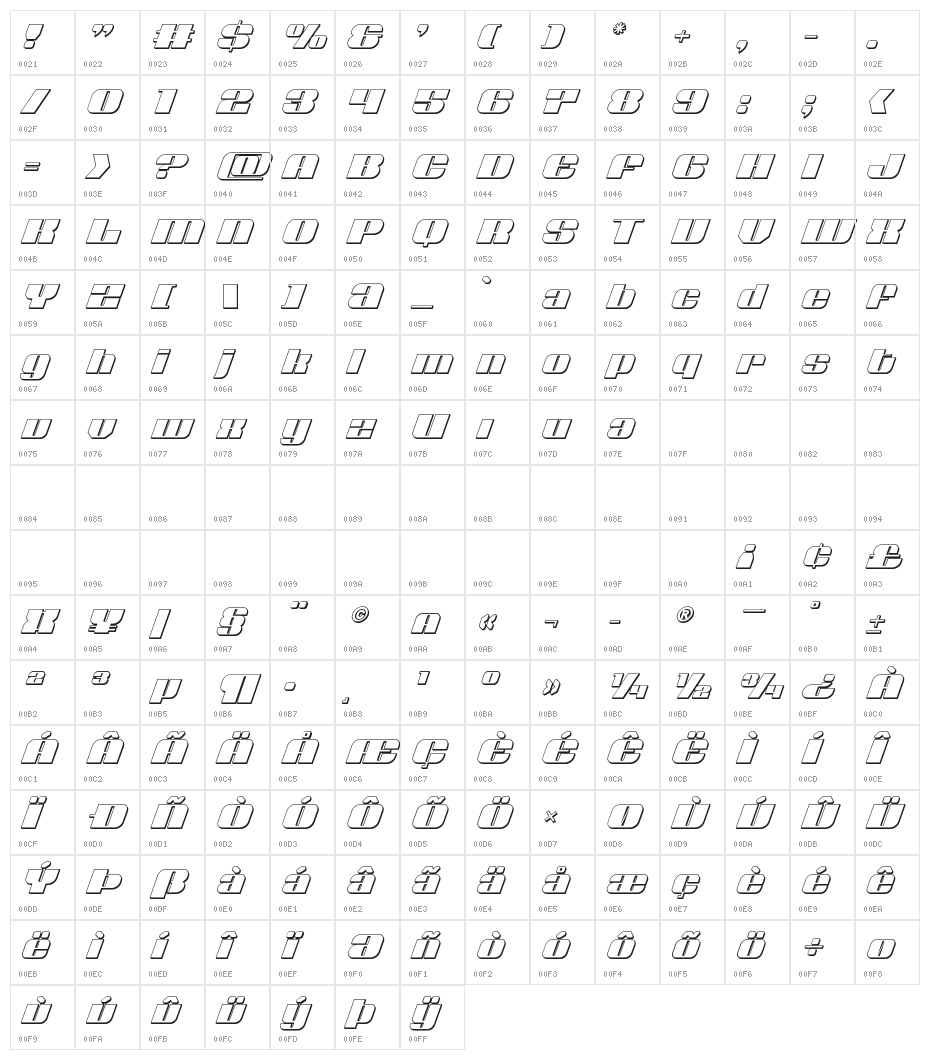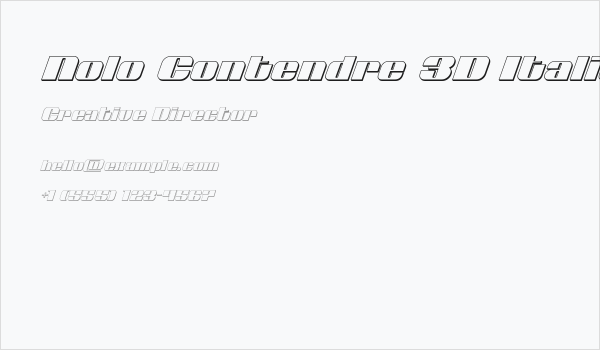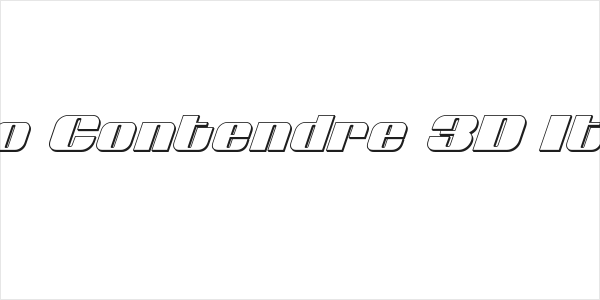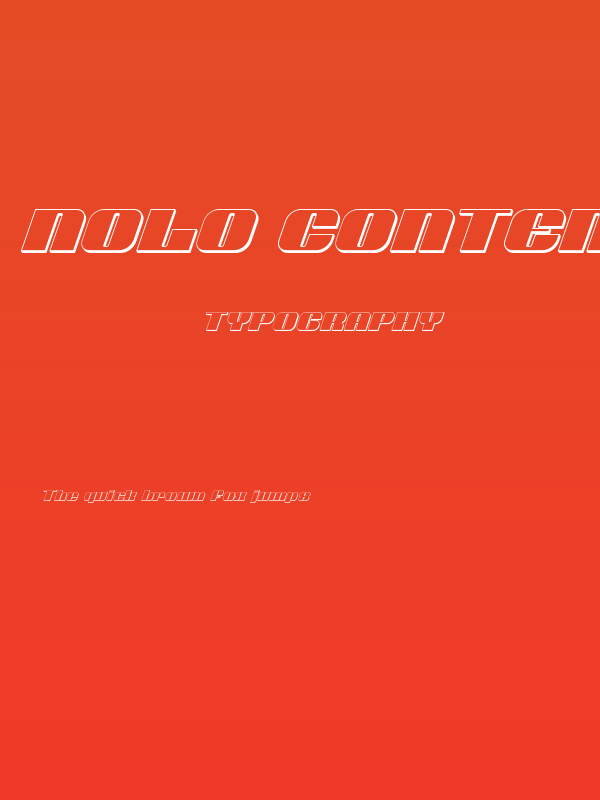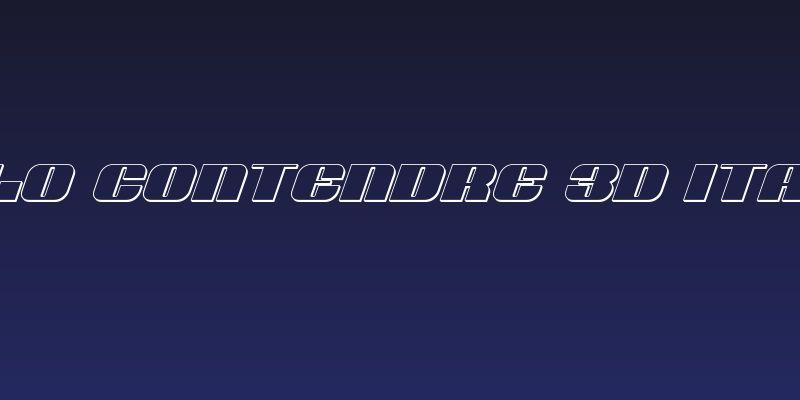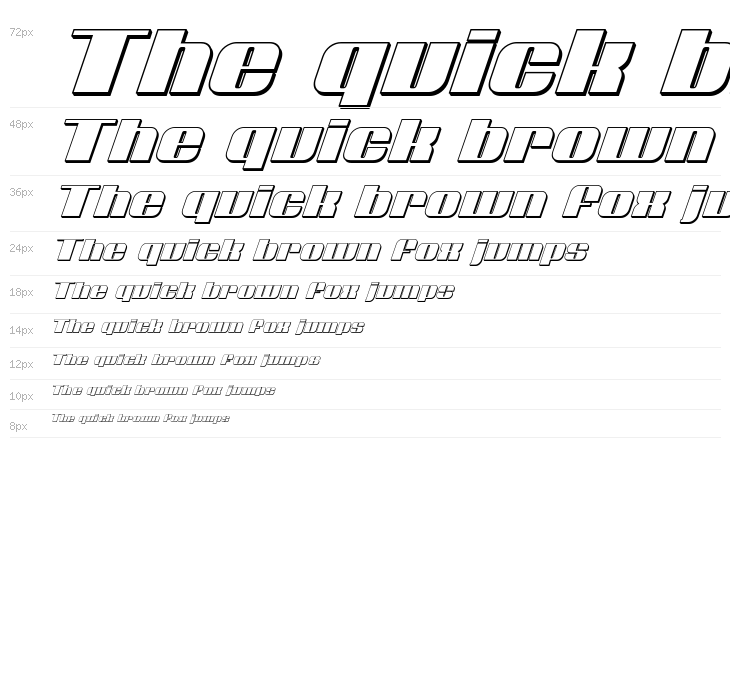
Nolo Contendre 3D Italic Font
Nolo Contendre 3D Italic Description
This font features a bold, three-dimensional appearance with an italic slant, giving it a dynamic and modern feel. The characters are outlined, creating a hollow effect that adds depth and visual interest. The uppercase and lowercase letters maintain a consistent style, with smooth curves and sharp edges that enhance readability. The numerals and special characters follow the same design principles, ensuring uniformity across all glyphs. This font's unique style makes it suitable for eye-catching designs where a sense of movement and modernity is desired.
| Proposed Projects | Ideal for posters, logos, video game graphics, and any project needing a futuristic or sporty vibe. |